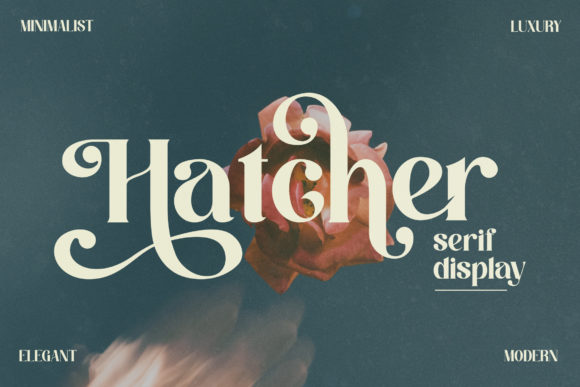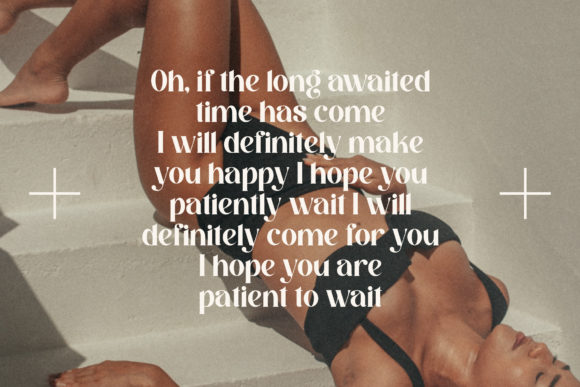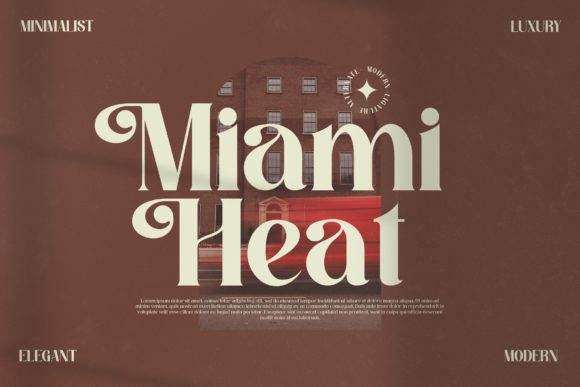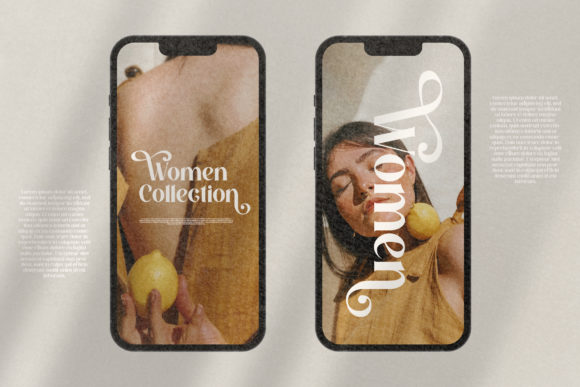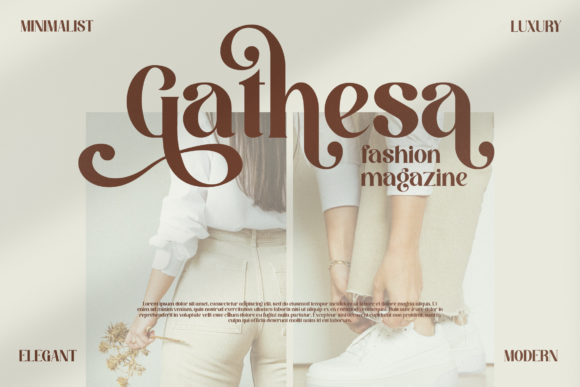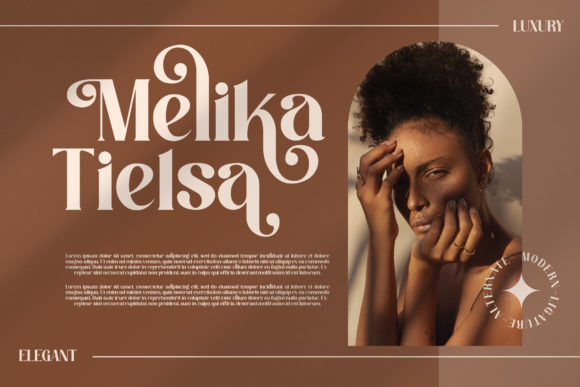
Introduction to Hatcher Font
That’s why we’re excited to introduce you to the Hatcher Font, a stylish and distinct serif font that’s sure to elevate your next creative project. With its high quality design and transparent background, Hatcher Font is the perfect addition to any design resource.
And the best part? This versatile font is PUA encoded, making it easy to access all of the glyphs and swashes you need to bring your design to life. Whether you’re working on a free download or a paid project, Hatcher Font is a valuable resource that’s sure to inspire your creativity.
Key Features of Hatcher Font
- High-quality design with a transparent background, making it ideal for creative projects.
- Comes in a single font size, but can be easily scaled up or down to suit the needs of your design project.
- Features a high-resolution design, ensuring crisp and clear typography even at large sizes.
- Designed to be versatile and adaptable, making it suitable for a wide range of creative projects, from digital art to print design.
Honest Review: Hatcher Font
I recently stumbled upon the Hatcher Font, and I must say it’s been a game-changer for my design projects. As a designer, I’m always on the lookout for high-quality fonts that can elevate my creative work. The Hatcher Font does just that, with its clean and modern aesthetic.
One of the standout features of the Hatcher Font is its transparent background, which makes it incredibly versatile. Whether you’re working on a branding project, creating a logo, or designing a website, this font is sure to impress. I’ve also found it to be a fantastic resource for free download, which is a major plus in my book.
- Transparent background for maximum flexibility
- Limited font sizes and weights may not be suitable for all projects
- Not ideal for complex typography or multi-font designs
Overall, I’m thoroughly impressed with the Hatcher Font. Its unique design and high-quality aesthetic make it an excellent addition to any design arsenal. While it may have some limitations, I believe it’s a fantastic resource for designers and creatives looking to elevate their work.
Hatcher Font
Tips for Getting the Most Out of Hatcher Font
Use Hatcher Font for headings and titles to add a touch of elegance to your design. Experiment with different font sizes and combinations to create a unique look. This versatile font is perfect for a variety of design projects, from brochures to social media graphics.
Hatcher Font is ideal for any design project that requires a high-quality, professional look. Use it for business cards, presentations, and websites to create a consistent and recognizable brand image.